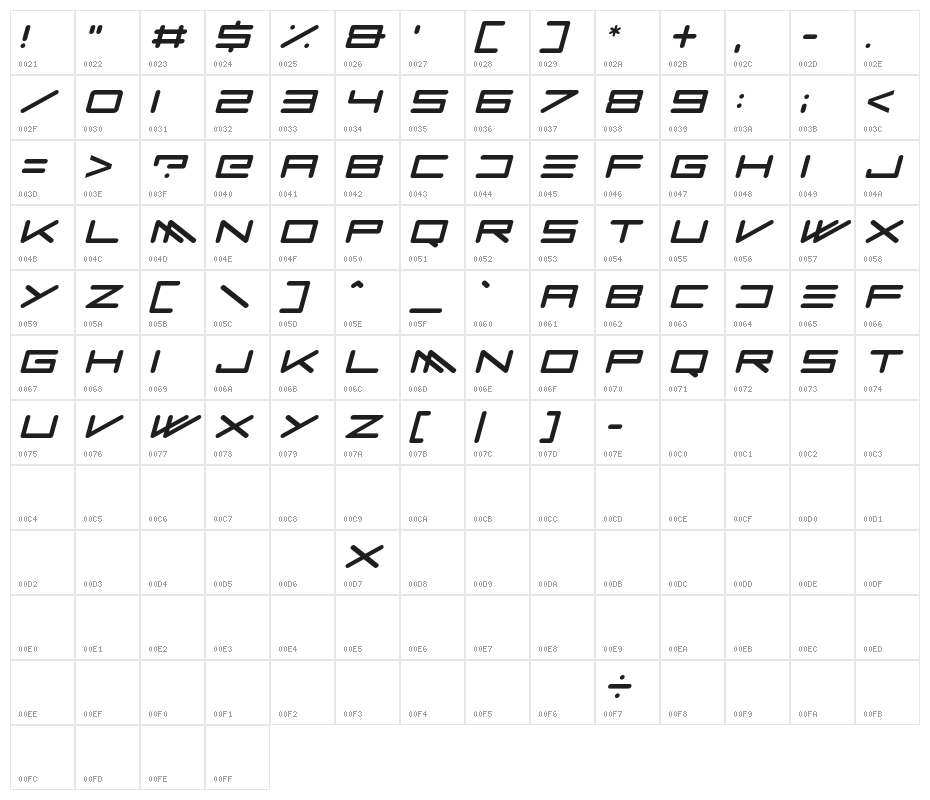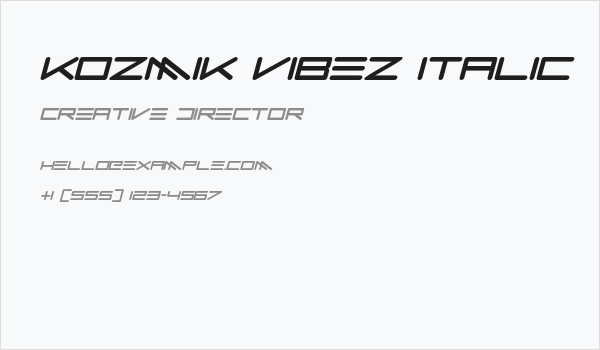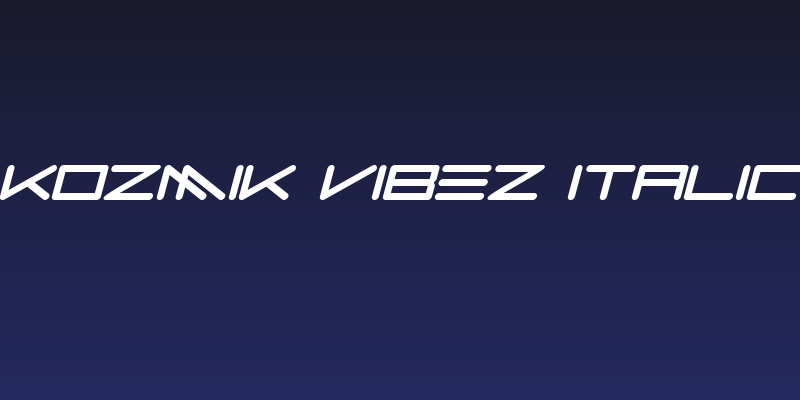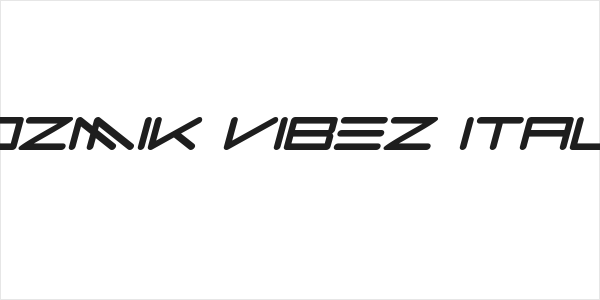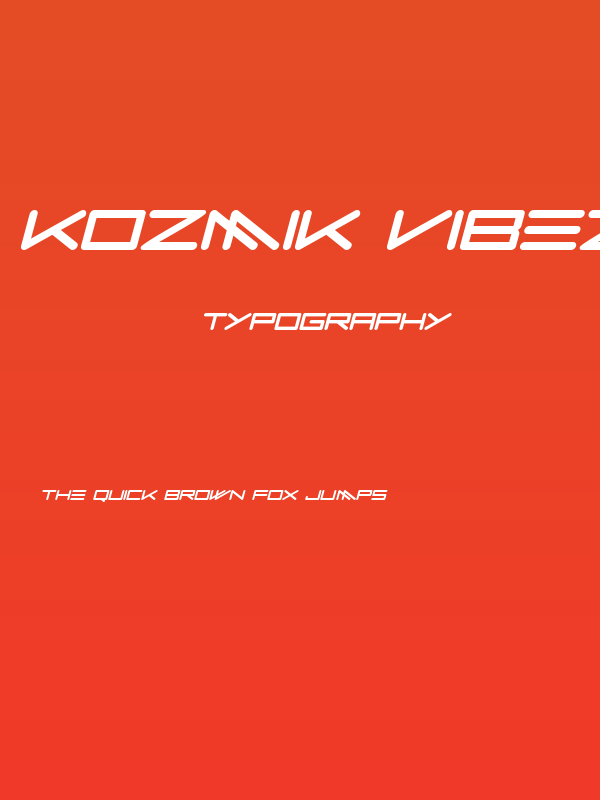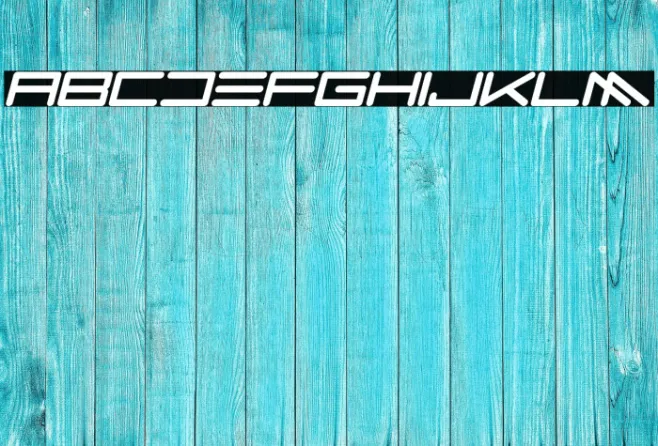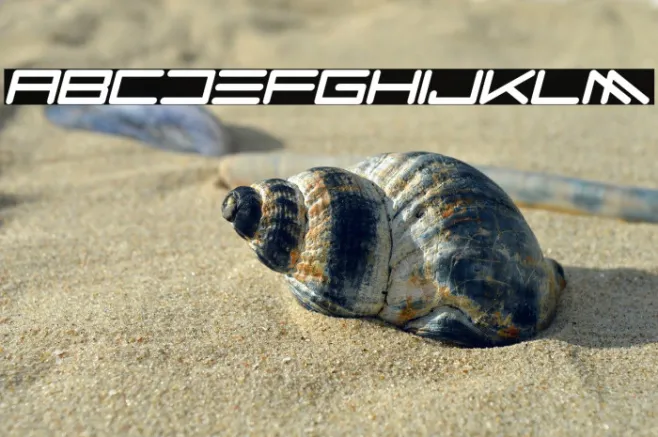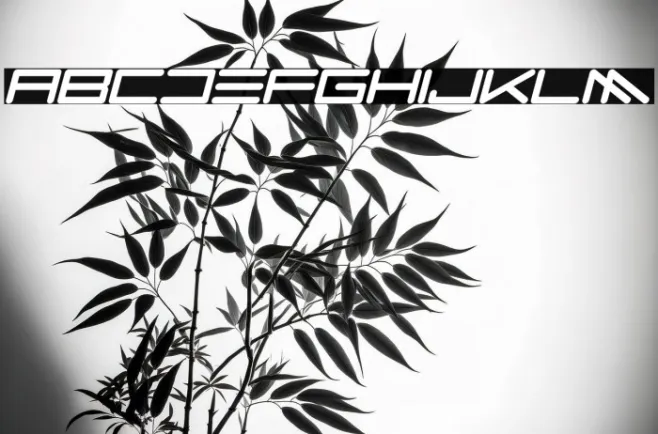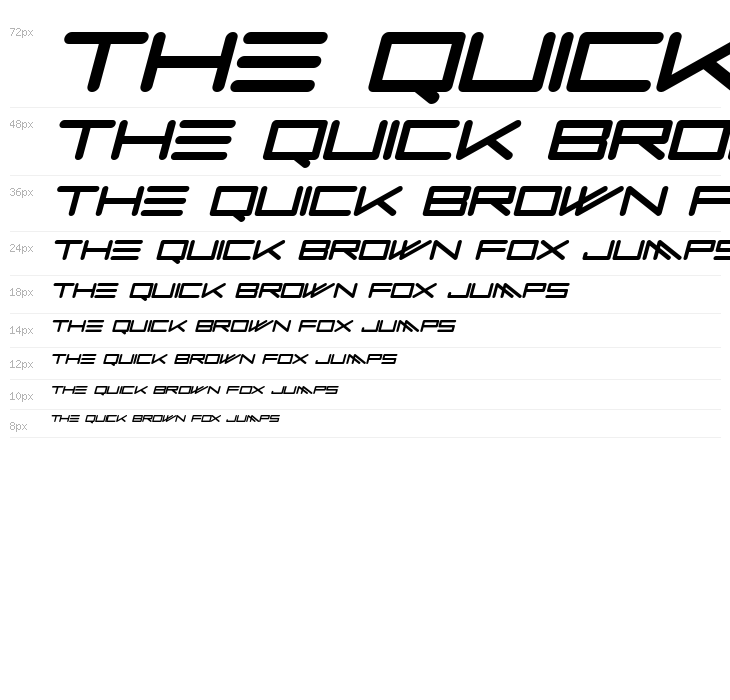
Kozmik Vibez Italic Font
Kozmik Vibez Italic Description
This font features a futuristic and dynamic design, characterized by its italicized, angular letterforms. The characters have a distinct geometric style with sharp edges and a consistent slant, giving it a sense of motion and speed. The strokes are uniform in thickness, contributing to a sleek and modern appearance. The font includes both uppercase and lowercase letters, numerals, and a variety of special characters, all maintaining the same stylistic theme. Its unique design makes it suitable for projects that require a contemporary and edgy look.
| Proposed Projects | Ideal for sci-fi themed designs, tech branding, video game titles, and modern advertising. |